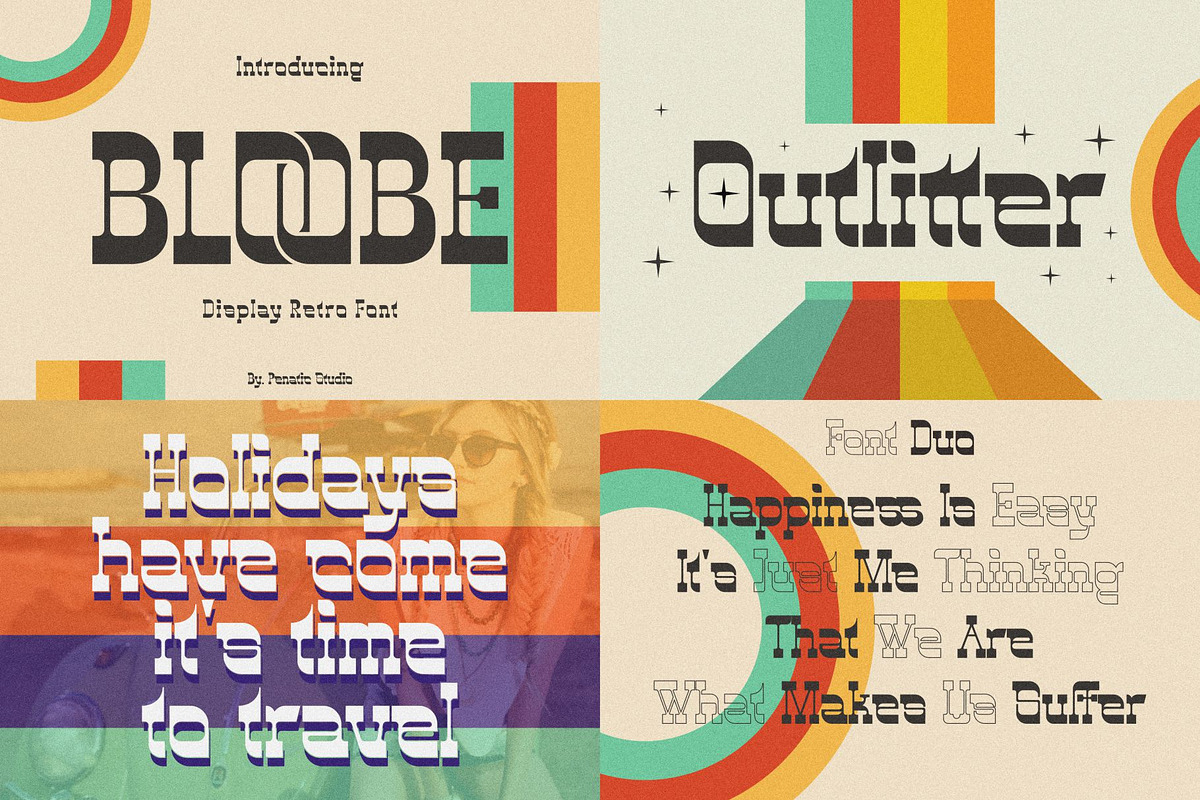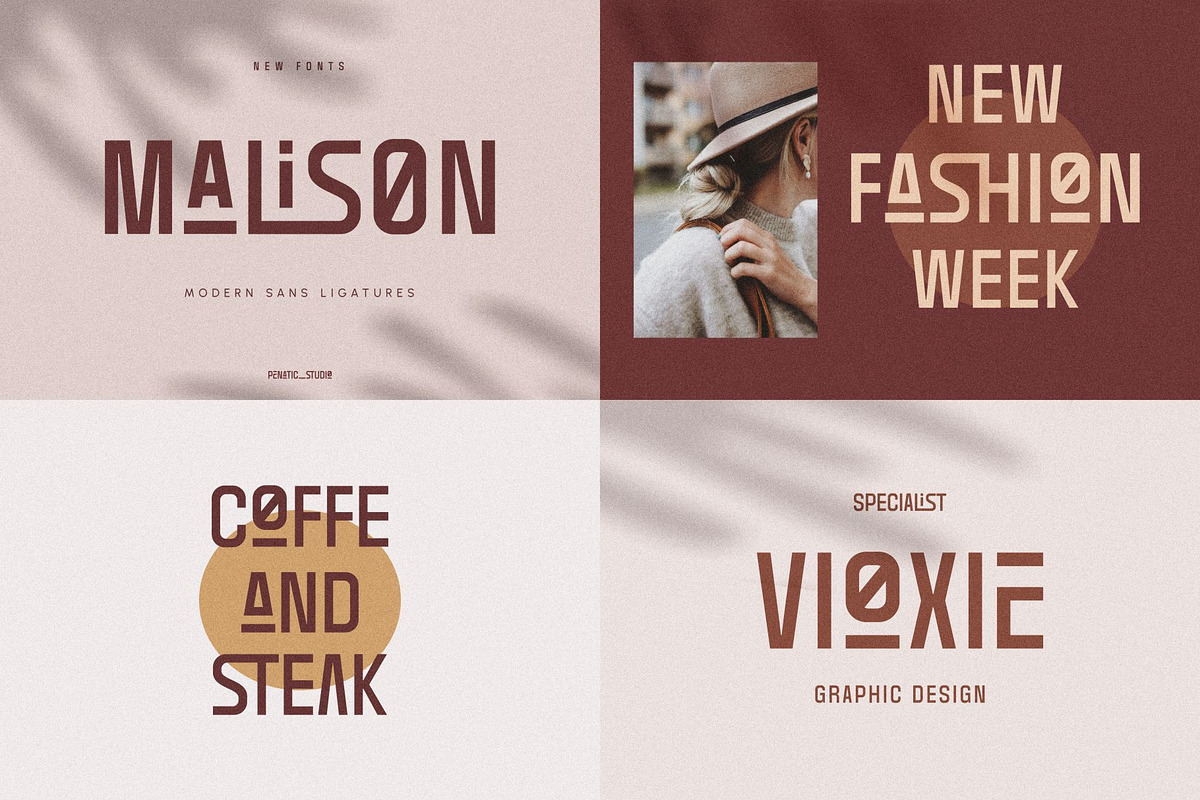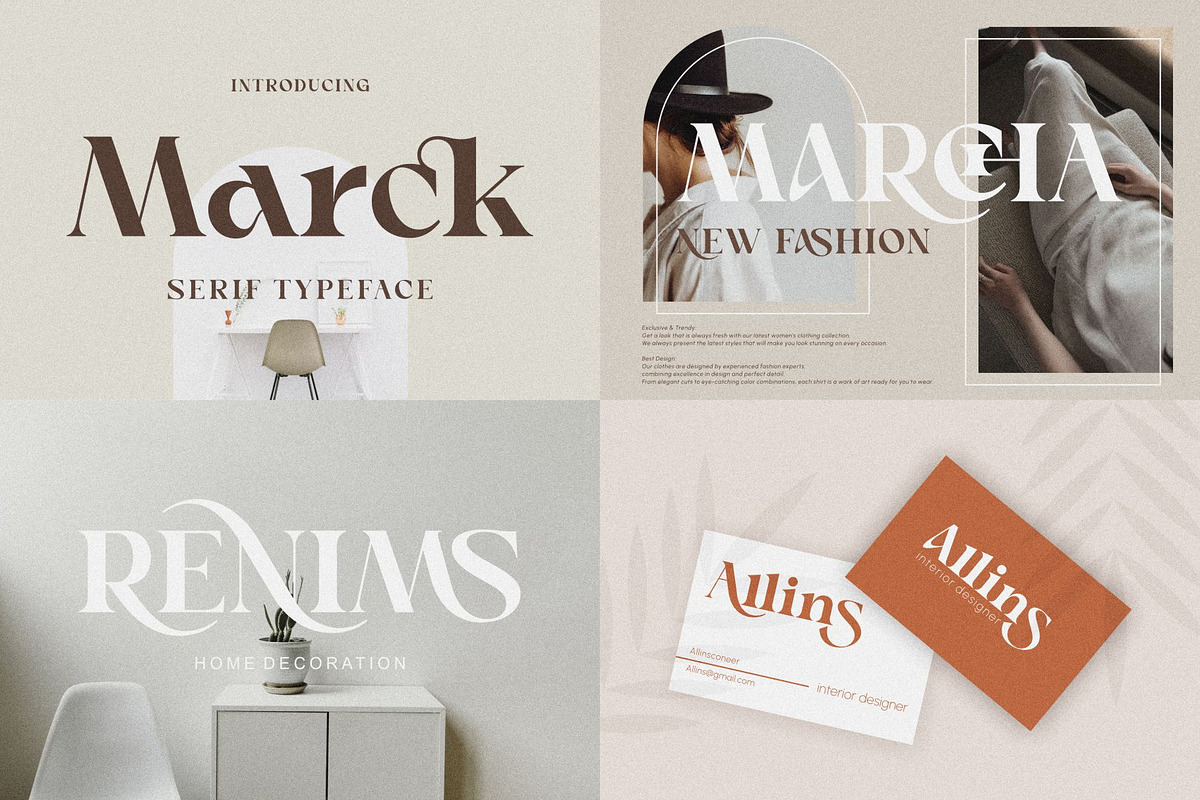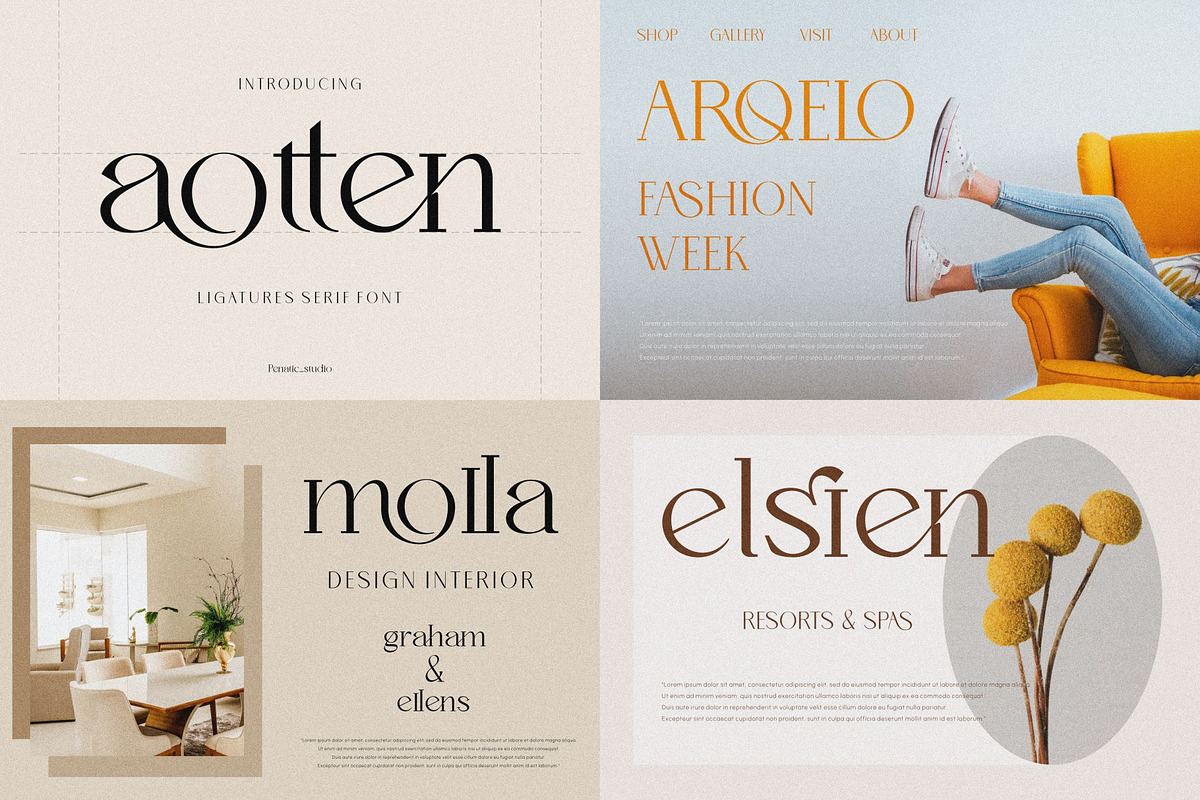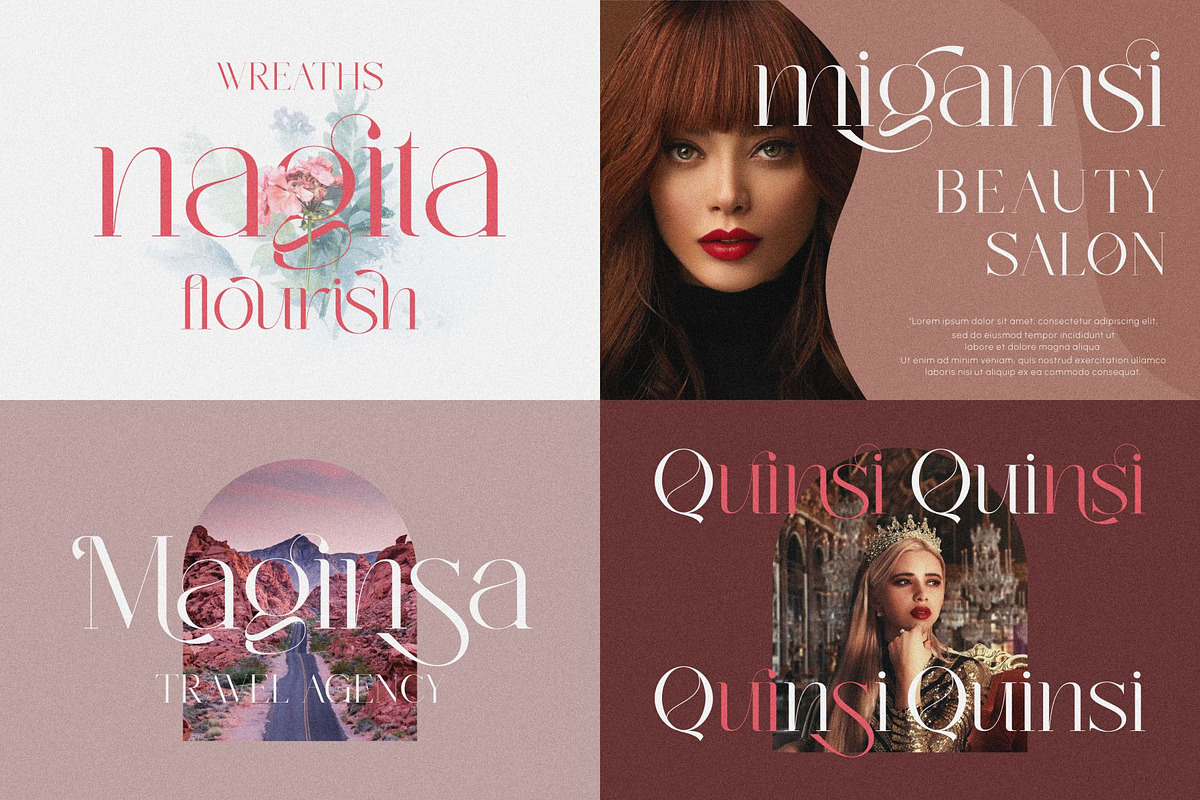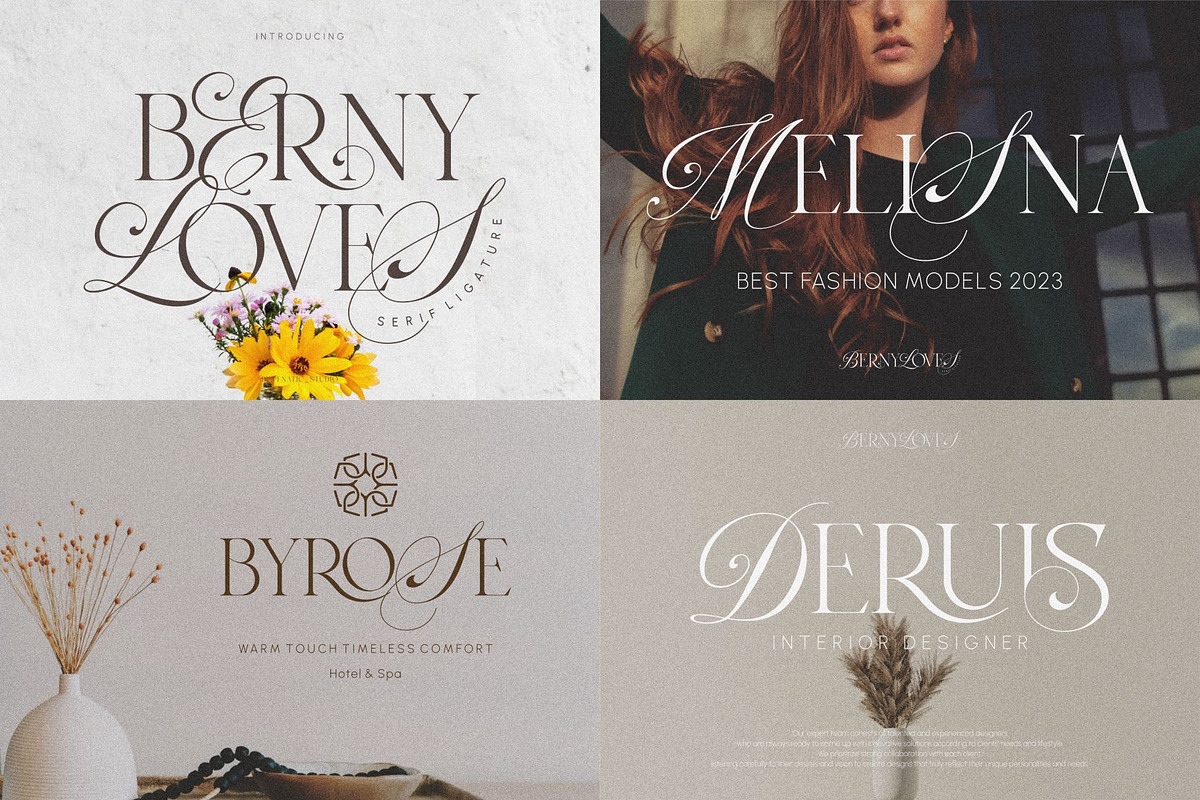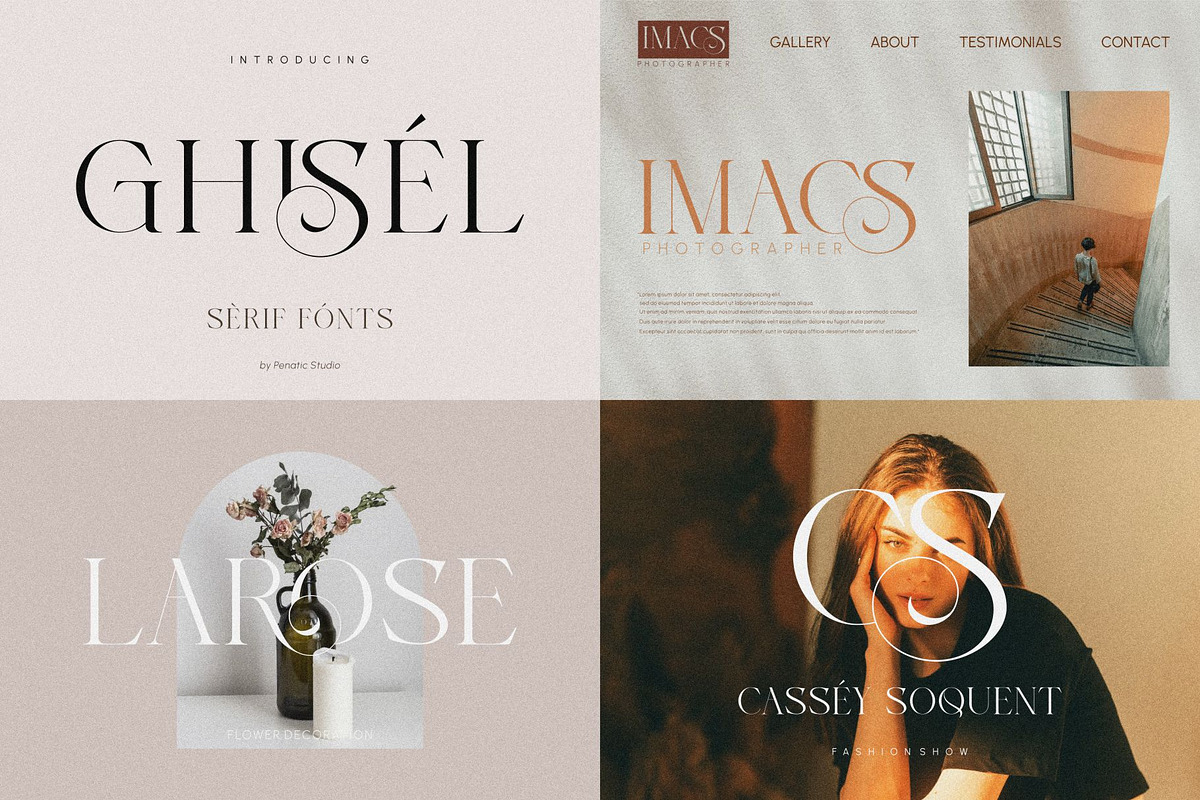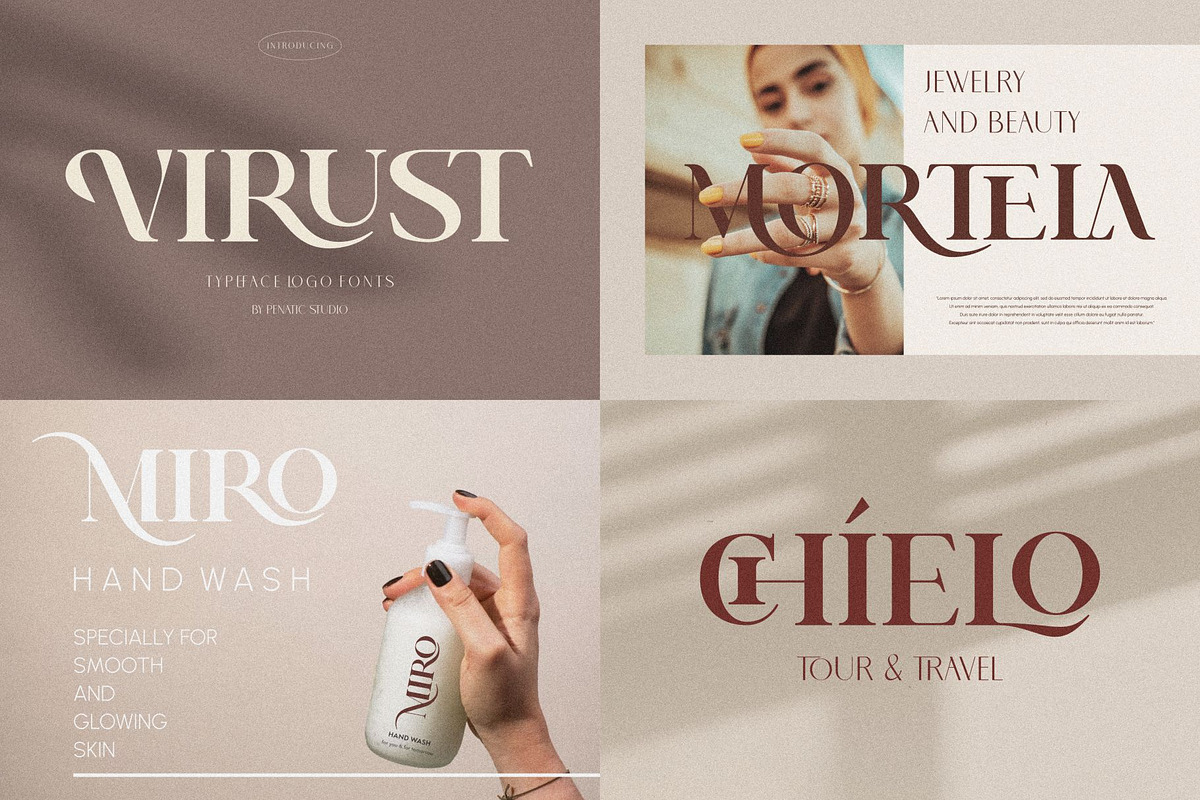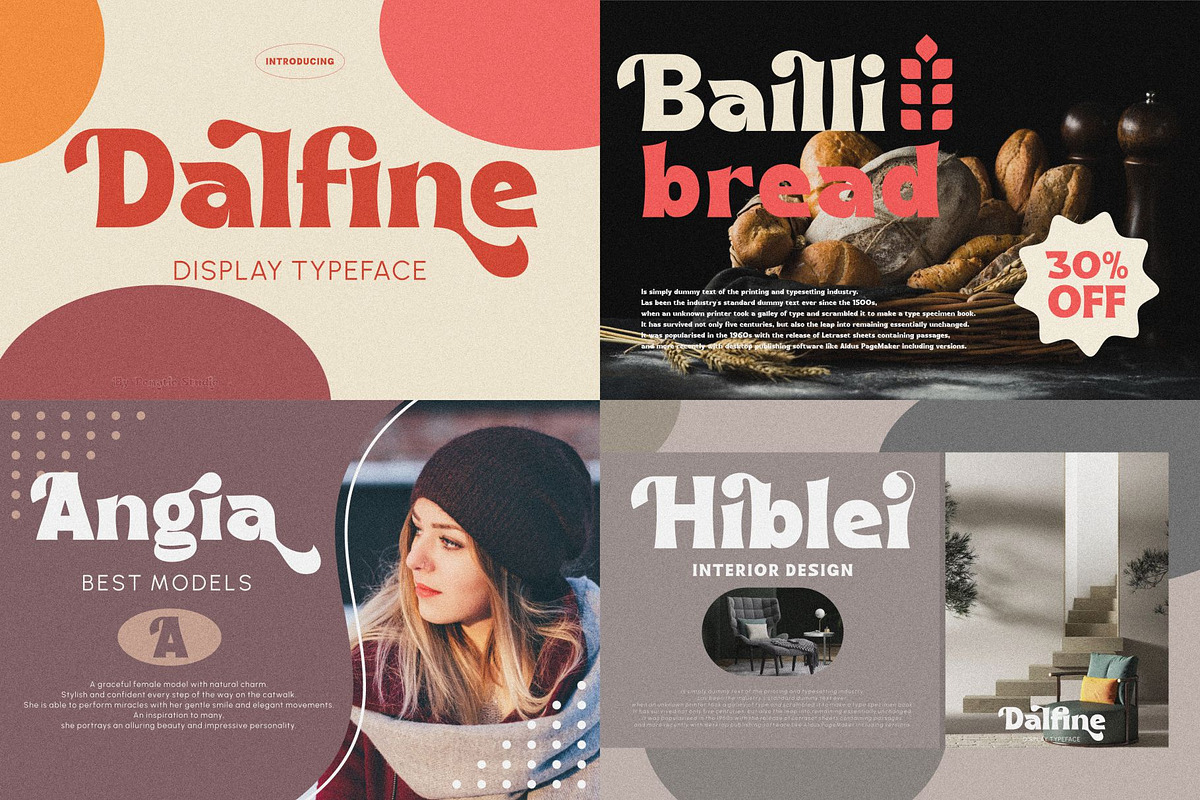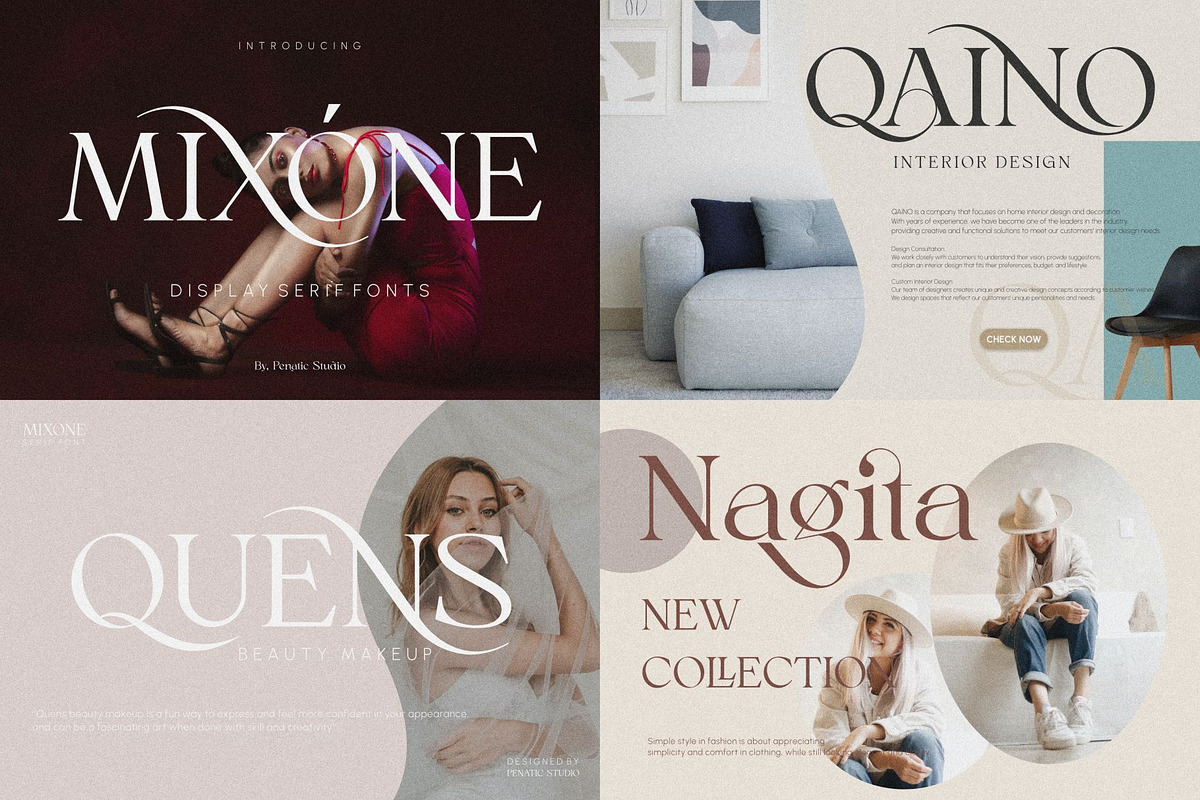
UNIQUE Serif Font Bundle
UNIQUE Serif Font Bundle Brought to life with fine craftsmanship and undeniable innovation, this collection of the best fonts is a perfect manifestation of unmatched creativity and design.
In this collection, you will find harmony between uniqueness and innovation, between timeless elegance and revolutionary style. Each font is a reflection of dedication to bringing the best to the world of design, offering endless possibilities and endless inspiration for anyone who dares to dream big.